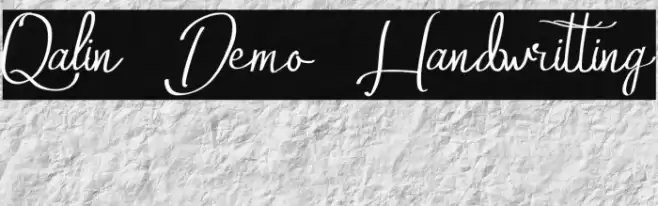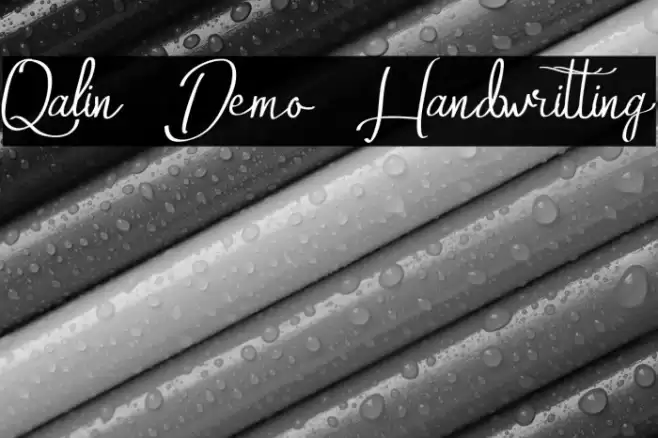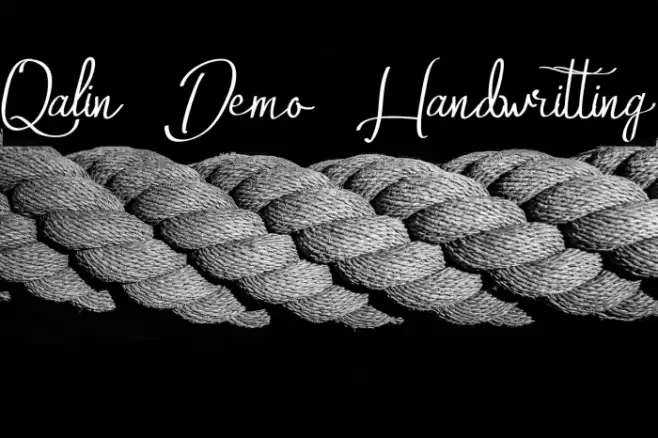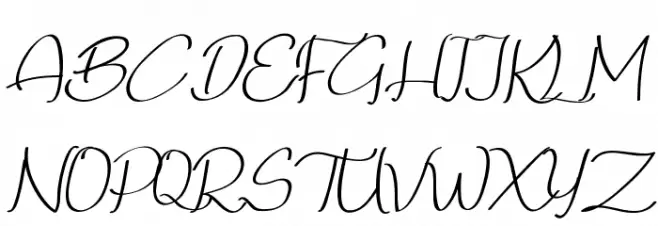
Qalin Demo Handwritting Font
Qalin Demo Handwritting Description
This font features a flowing, elegant script style that mimics the fluidity of natural handwriting. The uppercase letters are characterized by their sweeping curves and elongated strokes, giving them a graceful and sophisticated appearance. The lowercase letters maintain a consistent style, with smooth connections and a slightly playful touch. The overall design is both artistic and legible, making it suitable for a variety of creative applications. The font's delicate lines and intricate details suggest a sense of refinement and elegance, ideal for projects that require a personal or artistic touch.
A flowing, elegant script font with graceful curves and artistic flair from Regular fonts.
- Proposed Projects: Ideal for wedding invitations, greeting cards, branding, and artistic projects requiring a personal touch.
- Overall Style: Elegant, Artistic
- Use Case: Logos, Invitations, Artistic projects